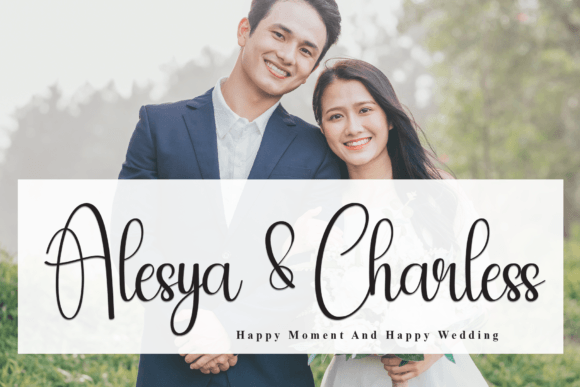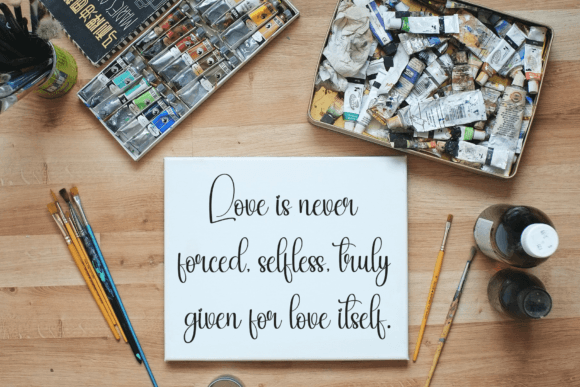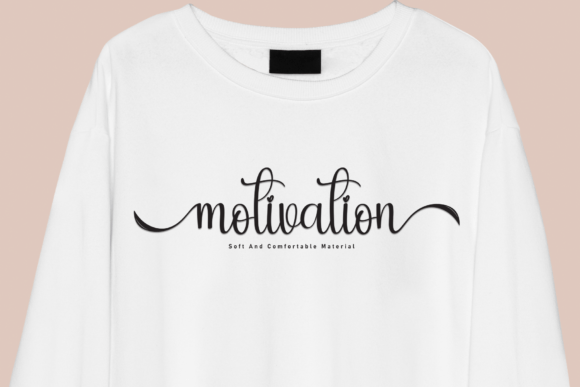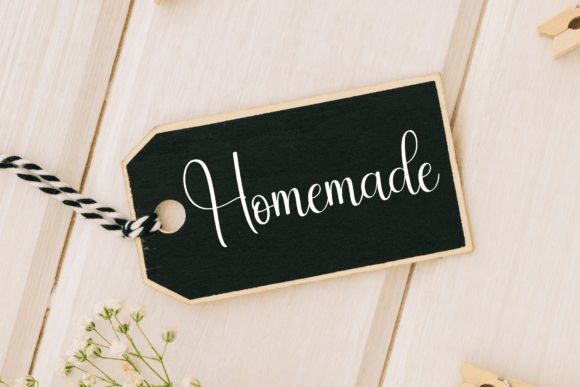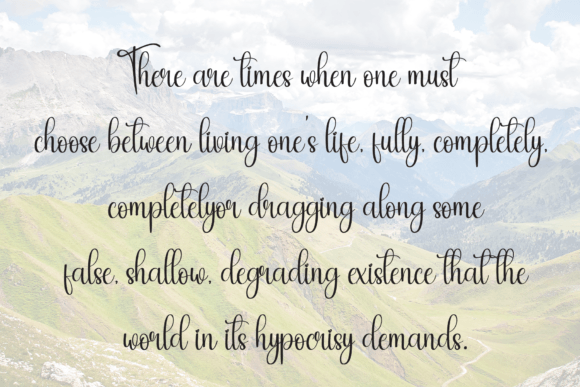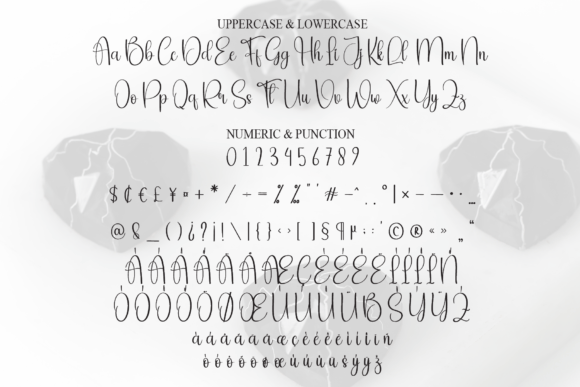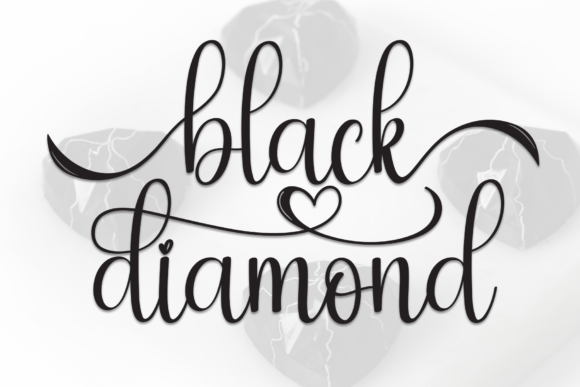
The Sweet and Friendly Black Diamond Font: A Designer’s Delight
I’ll never forget the time I was working on a wedding invitation project, and my client asked for a font that was “fun, yet elegant.” I scoured the internet, trying out font after font, but nothing seemed quite right. That was until I stumbled upon the Black Diamond font. With its sweet and friendly handwritten display style, it was love at first sight! 💕
Black Diamond is a cute and fun font that’s ideal for writing wedding invitations, cards, or any other design that might need a fun touch. In this article, I’ll share my honest review of the font, provide a practical guide on how to use it, and explore similar fonts and alternatives.
- 💖 Sweet and friendly handwritten display style
- 🎉 Perfect for wedding invitations, cards, and other fun designs
- ✅ Easy to read and understand, even at smaller sizes
- 🌈 Great for adding a personal touch to your designs
- ⚠️ Limited use for formal or professional designs
- 🤔 Some letters may appear a bit inconsistent in size or style
- Experiment with OpenType features, such as glyphs and stylistic alternates, to add more personality to your text
- Explore OpenType features, such as glyphs and stylistic alternates, to add more personality to your text
The Story Behind Black Diamond
Black Diamond was designed by a talented font designer who wanted to create a font that was both fun and elegant. The designer drew inspiration from classic handwritten fonts, with a modern twist. The result is a font that’s perfect for designs that need a personal touch.
Q: What is the Black Diamond font?
A: Black Diamond is a sweet and friendly handwritten display font that’s perfect for designs that need a fun touch.
Q: Is Black Diamond suitable for formal designs?
A: No, Black Diamond is best suited for informal designs, such as wedding invitations, cards, and other fun designs.
Q: Does Black Diamond support OpenType features?
A: Yes, Black Diamond supports OpenType features, such as glyphs and stylistic alternates, which can add more personality to your text.